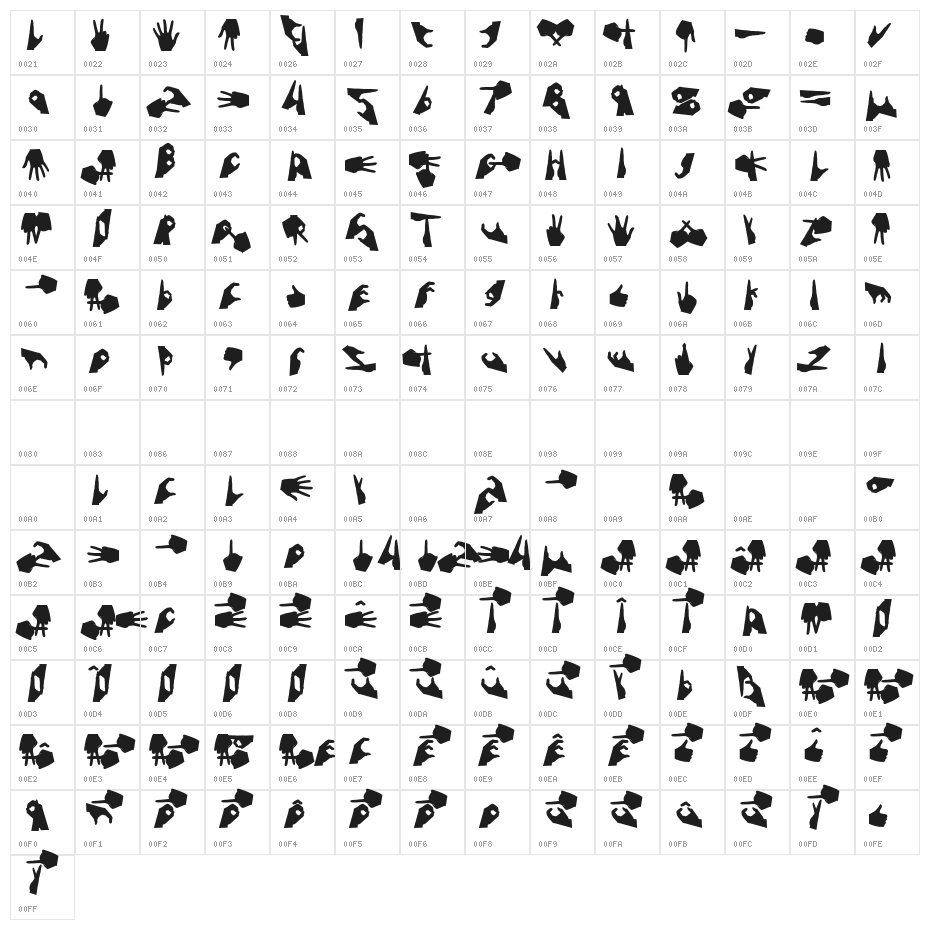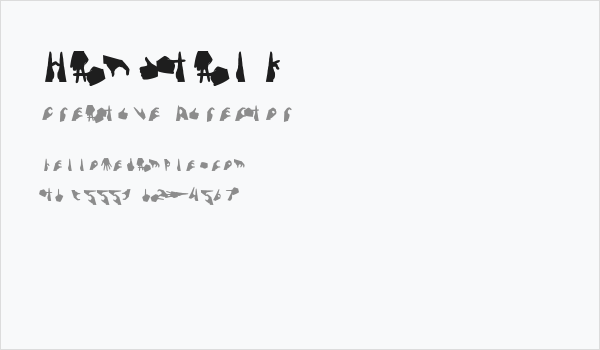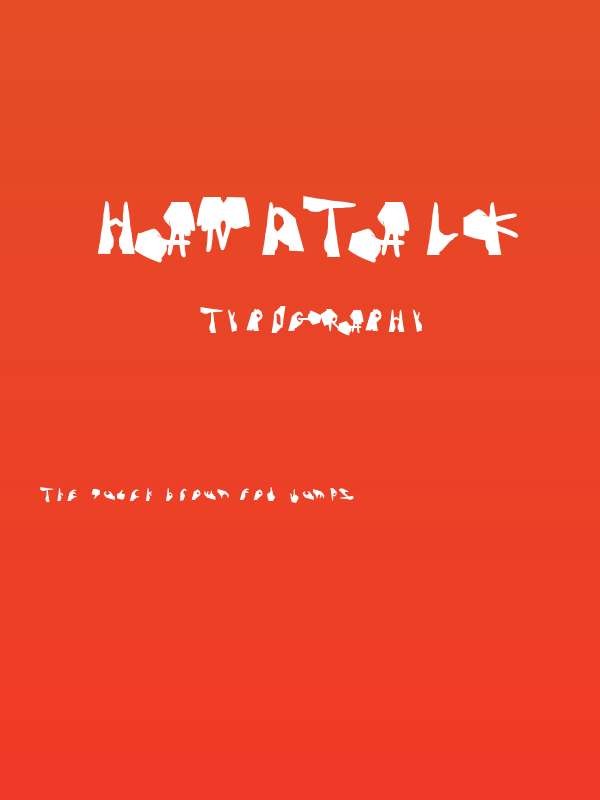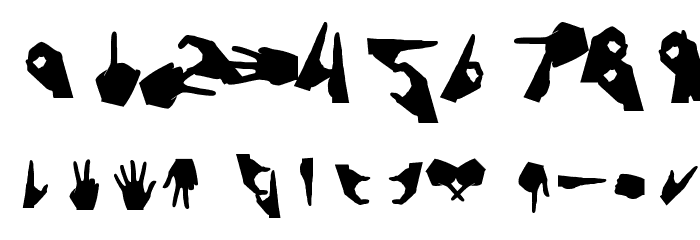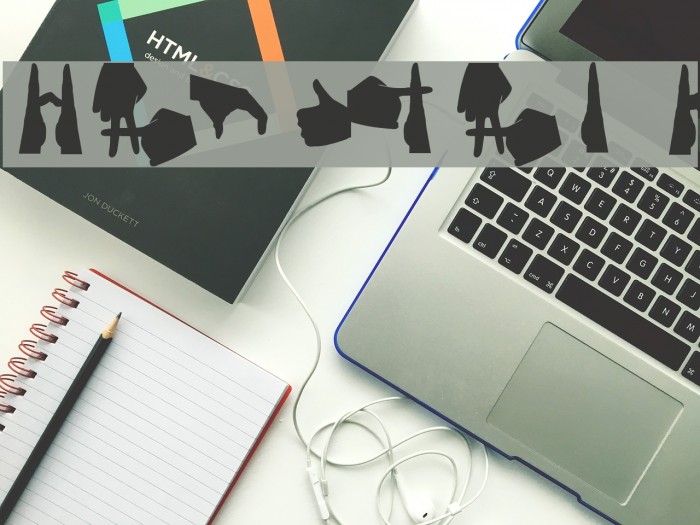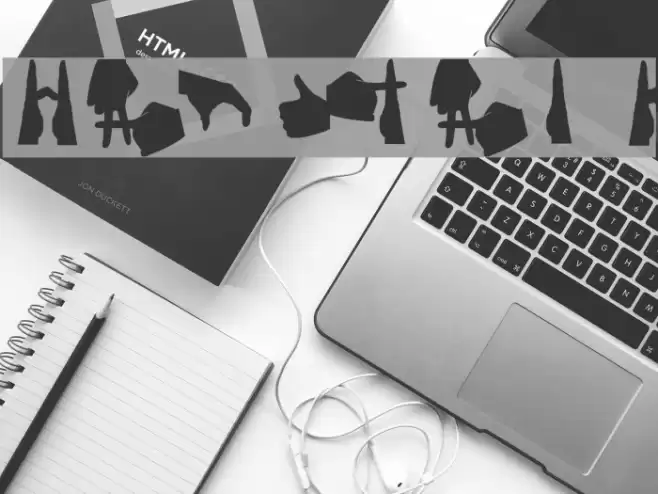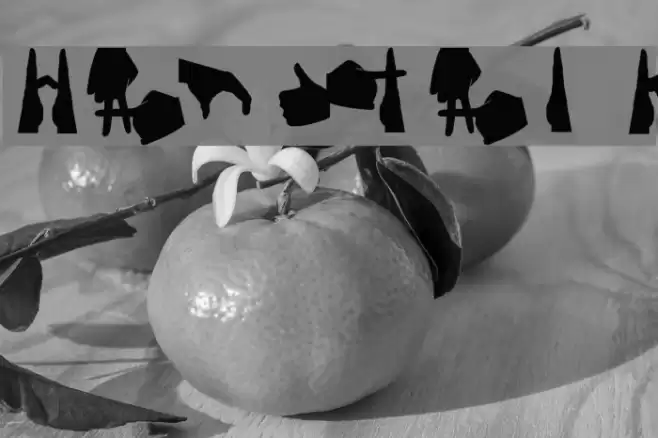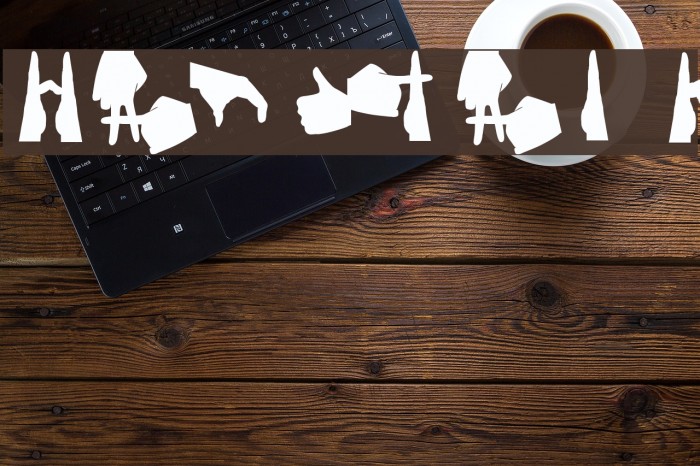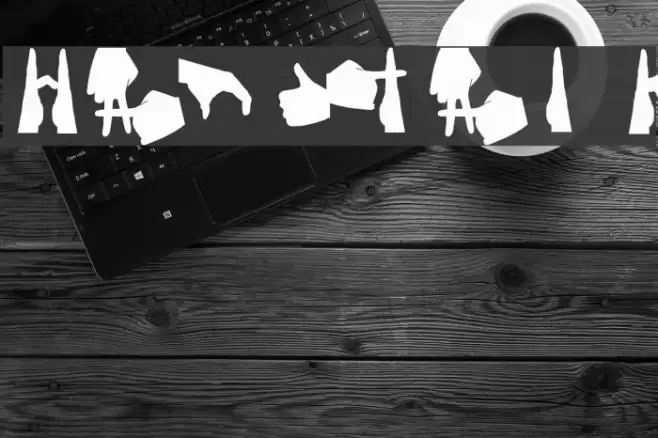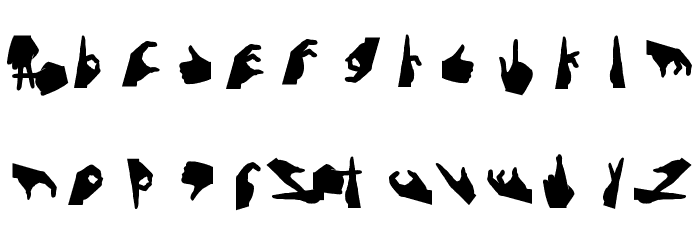
Handtalk Font
Handtalk Description
This unique font is inspired by hand gestures, with each character resembling a silhouette of a hand forming a different shape or sign. The design is bold and striking, capturing attention with its creative representation of letters and numbers. The characters are crafted to resemble hands in various positions, making it a playful and artistic choice for projects that aim to stand out. The font's distinct style makes it suitable for creative and informal applications, where a touch of whimsy and originality is desired.
| Use Case | Logos, Posters, Artistic Displays |
| Proposed Projects | Ideal for creative projects such as posters, logos, and artistic displays where a unique and eye-catching font is needed. |